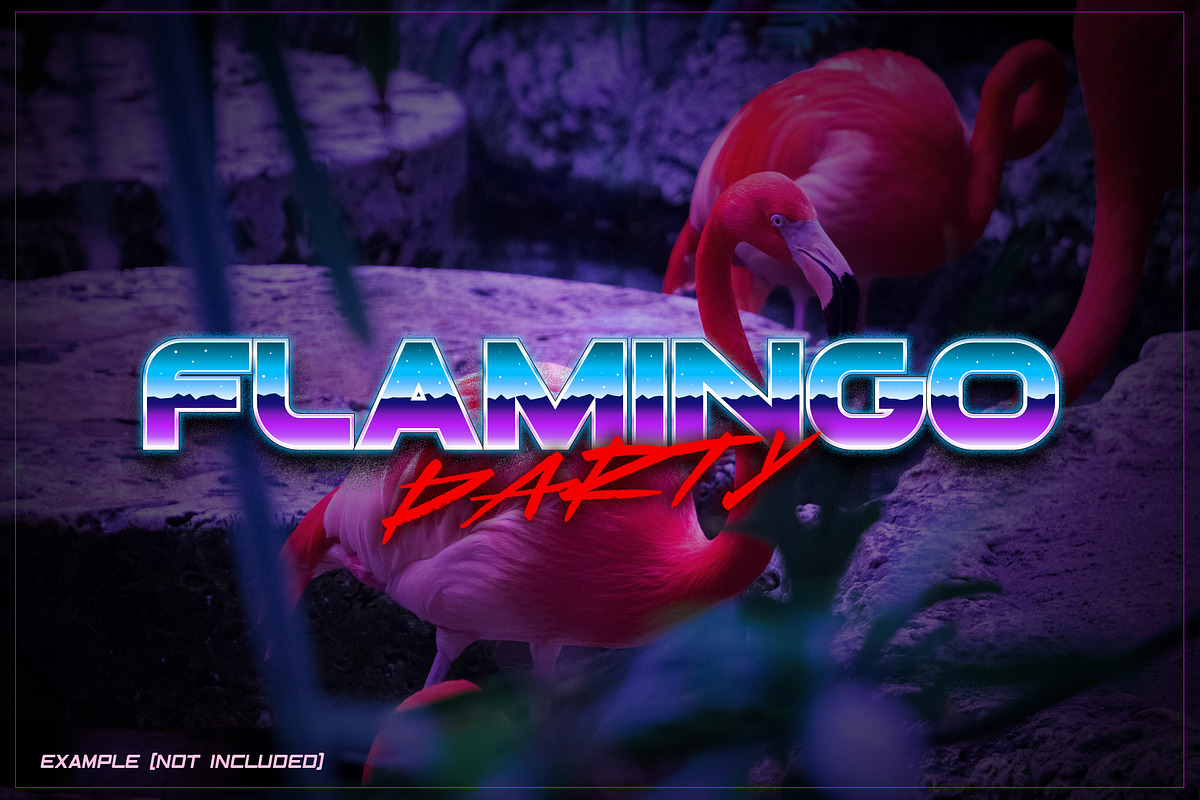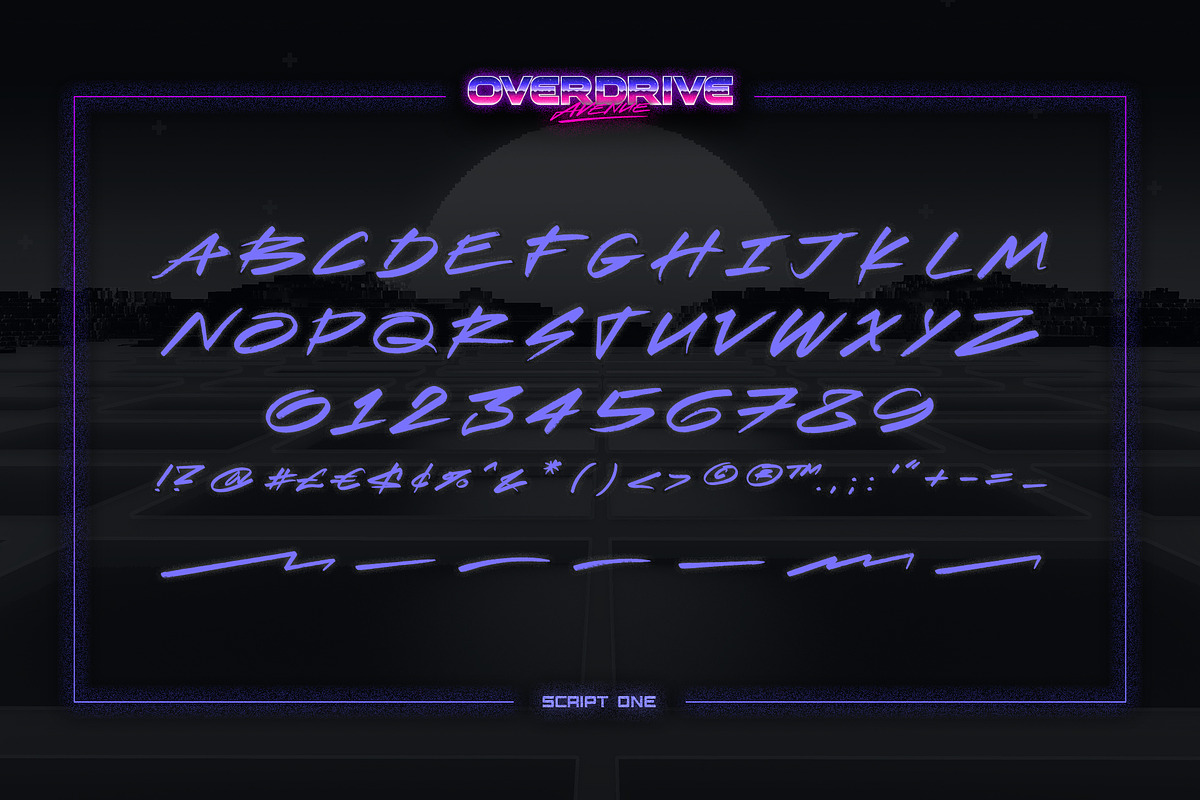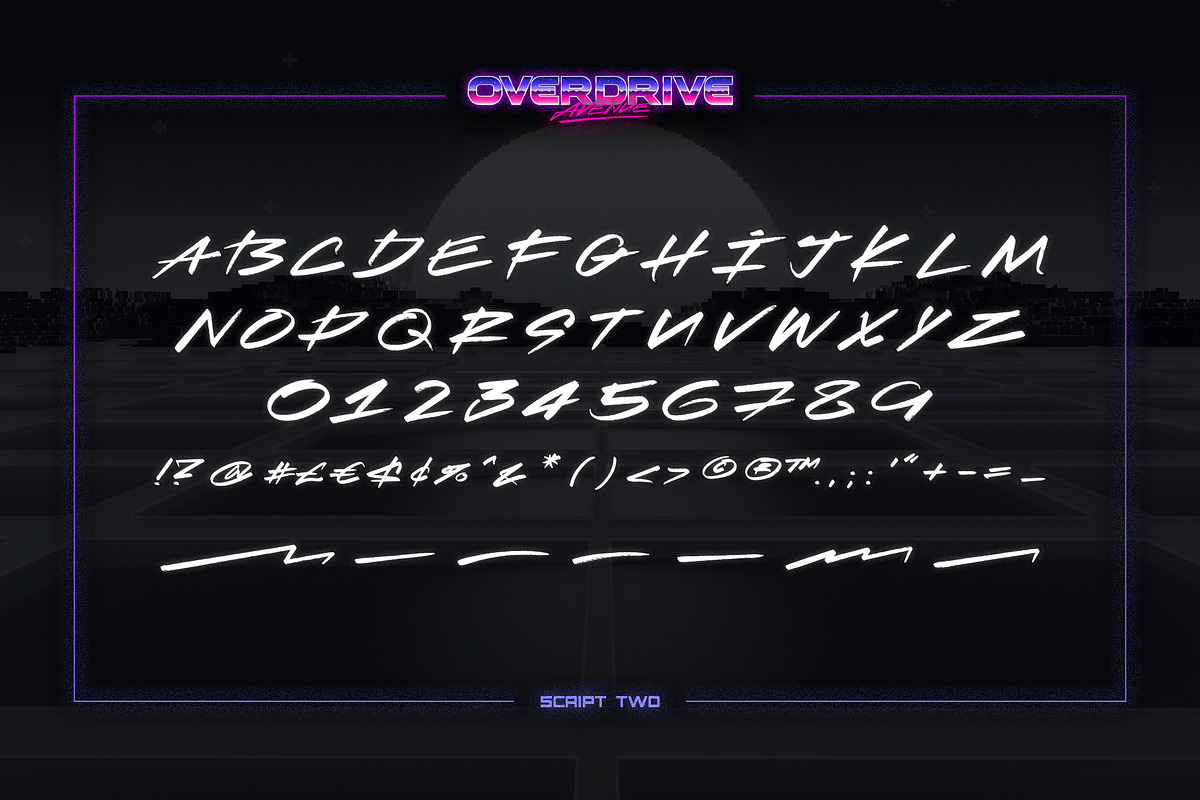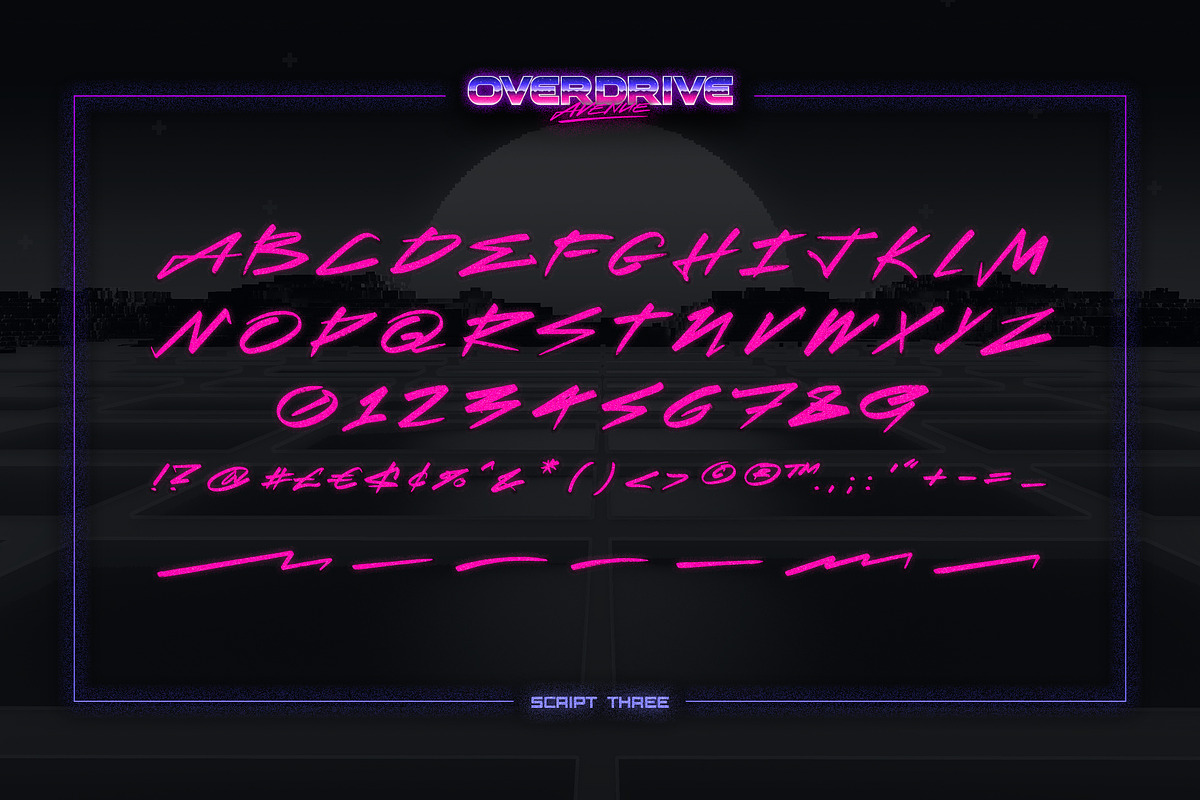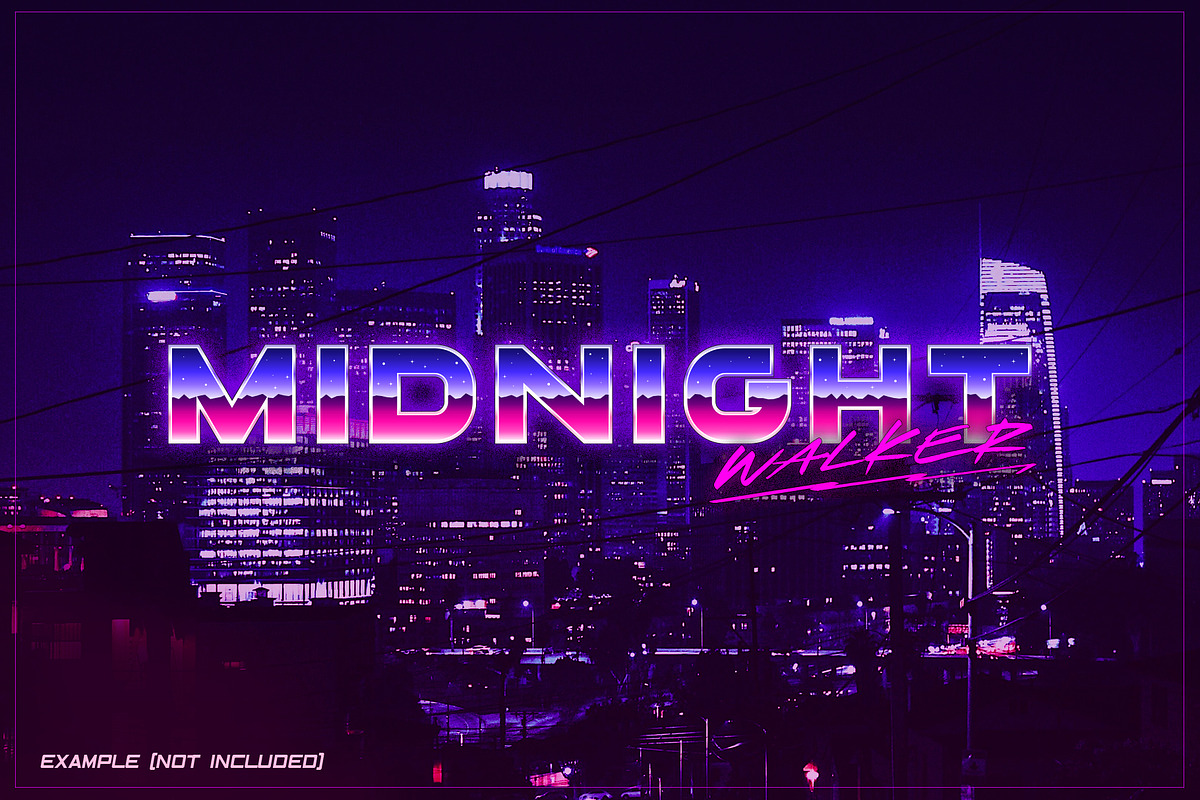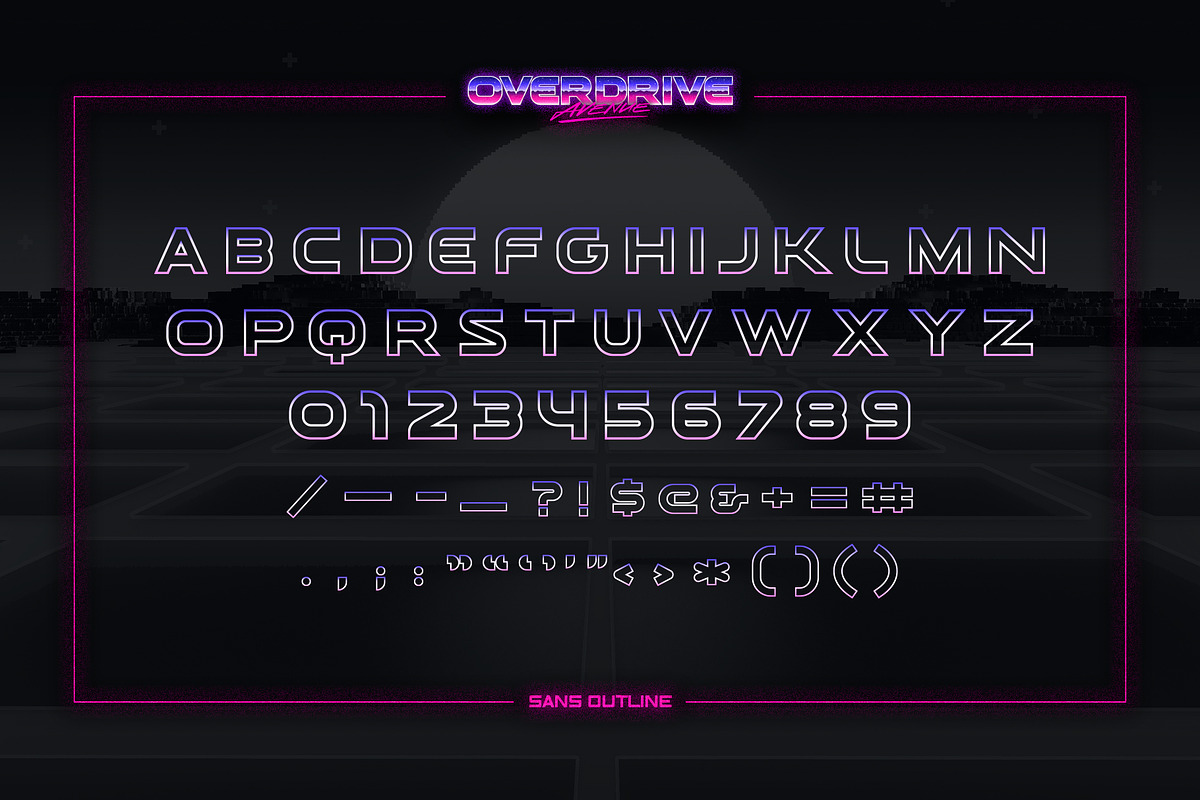
Overdrive Avenue – 2 in 1 Retro Wave
What a wonderful time it was! Sweet 80's and early 90's the time when you had VHS tapes with your favourite movies on your shelf. CDs and Laser Discs were on top of technology progress! Our nostalgic font 2 in 1 called Overdrive Avenue (Sans + Script with 5 different styles in total) will help you create the atmosphere of those very 80s that we imagine in our heads with a warm memories. Retro wave as is. Color OpenType Font in .OTF format (Adobe Illustrator / Photoshop 2018+).
Overdrive Avenue Sans Regular - 80’s styled font. Contains uppercase, lowercase characters with set of numerals and punctuation.
Overdrive Avenue Sans Outline - 80’s styled italic font. Contains uppercase, lowercase characters with set of numerals and punctuation.
Hotliner Script Regular - A textured hand-made script font. Contains uppercase characters with full set of numerals and punctuation.
Hotliner Script Second - Another version of textured hand-made script font. Contains uppercase characters with full set of numerals and punctuation.
Hotliner Script Third - Third version of textured hand-made script font. Contains uppercase characters with full set of numerals and punctuation.
7 Swashes for finishing your 80’s styled creations